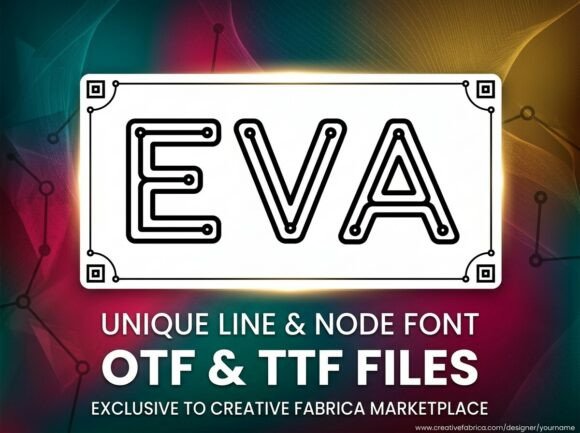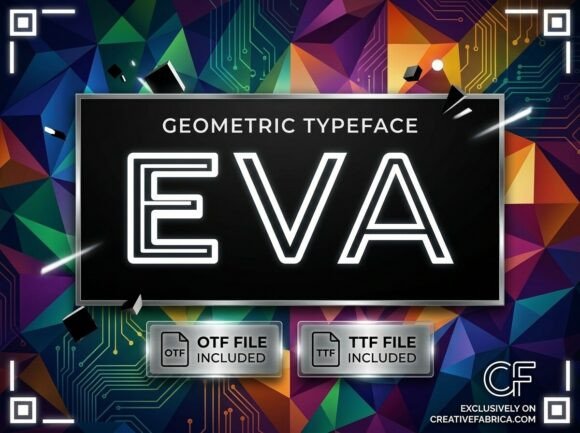
Eva Font: Where Logic Meets Style in a Neon-Drenched Geometric Display
In the realm of typography, few fonts manage to encapsulate the essence of modernity and futurism as effectively as Eva. This striking geometric display font is a masterclass in design, blending the precision of logic with the allure of style. With its bold, monolinear letterforms, perfect angles, and clean architectural lines, Eva is the epitome of a “neon-and-futuristic” aesthetic. In this article, we’ll delve into the world of Eva Font, exploring its design characteristics, use cases, and why it has become the premier choice for various digital and print applications.
The Design Philosophy Behind Eva
Eva’s design is rooted in the principles of geometric typography, where every line, curve, and angle is meticulously crafted to create a sense of harmony and balance. The font’s bold, monolinear letterforms are built on a foundation of perfect angles and clean lines, giving it a futuristic and high-tech appearance. The addition of a luminous white inline effect adds a touch of sophistication and elegance, setting Eva apart from other geometric fonts.
Key Features of Eva Font
- Geometric Precision: Eva’s letterforms are constructed using precise geometric shapes, resulting in a font that exudes a sense of modernity and technological advancement.
- Monolinear Design: The font’s monolinear design ensures that every line and curve is of equal width, creating a sense of consistency and visual flow.
- Luminous White Inline Effect: The subtle inline effect gives Eva a luminous, neon-like appearance, adding a touch of sophistication and style.
- Rhythmic Mathematical Precision: Eva’s design is guided by mathematical precision, resulting in a font that is both aesthetically pleasing and highly legible.
Use Cases for Eva Font
Eva’s unique design characteristics make it an excellent choice for various applications, including:
- Independent Tech Startup Branding: Eva’s futuristic and high-tech appearance makes it an ideal choice for tech startups looking to establish a strong brand identity.
- Cyberpunk Gaming Logos: The font’s neon-like appearance and geometric precision make it a perfect fit for cyberpunk-themed gaming logos.
- Electronic Music Event Titles: Eva’s bold and futuristic design makes it an excellent choice for electronic music event titles, adding a touch of style and sophistication.
- High-Impact Digital-Minimalism Social Media Headers: Eva’s clean and geometric design makes it an excellent choice for social media headers, where visual impact and legibility are crucial.
Why Designers and Crafters Love Eva Font
Eva has quickly become a favorite among designers and crafters due to its versatility, legibility, and aesthetic appeal. The font’s geometric precision and monolinear design make it highly legible, even at small sizes. Additionally, Eva’s luminous white inline effect adds a touch of style and sophistication, making it perfect for high-end branding and design applications.
Tips for Using Eva Font Effectively
- Pair Eva with Neutral Backgrounds: Eva’s bold design works best on neutral backgrounds, allowing the font to take center stage.
- Experiment with Color: Eva’s luminous white inline effect can be paired with a range of colors to create striking visual effects.
- Use Eva for Headlines and Titles: Eva’s bold design makes it perfect for headlines and titles, adding a touch of style and sophistication.
In conclusion, Eva Font is a striking geometric display font that embodies the intersection of logic and style. With its bold, monolinear letterforms, perfect angles, and clean architectural lines, Eva is the premier choice for designers and crafters looking to add a touch of futurism and sophistication to their designs. Whether used for independent tech startup branding, cyberpunk gaming logos, electronic music event titles, or high-impact digital-minimalism social media headers, Eva is sure to make a lasting impression.